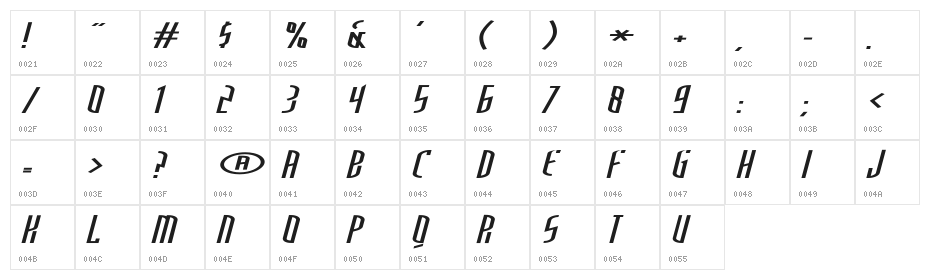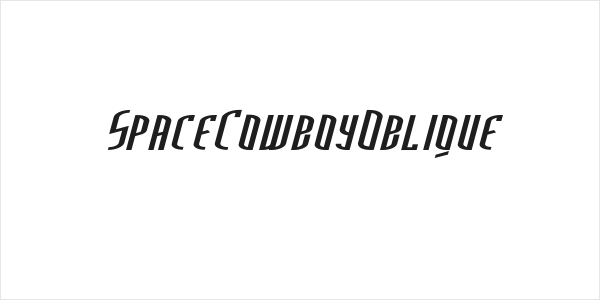
SpaceCowboyOblique Font
SpaceCowboyOblique Description
This font features a dynamic and futuristic style with a distinct oblique slant, giving it a sense of motion and speed. The characters are elongated and angular, with sharp edges and a consistent diagonal orientation. The uppercase and lowercase letters maintain a uniform height, creating a cohesive and streamlined appearance. Numbers and special characters follow the same angular and slanted design, ensuring visual consistency across all elements. This font's bold and striking presence makes it ideal for projects that require a modern and edgy aesthetic.
| Proposed Projects | Ideal for sci-fi themed designs, video game titles, futuristic branding, and dynamic posters. |